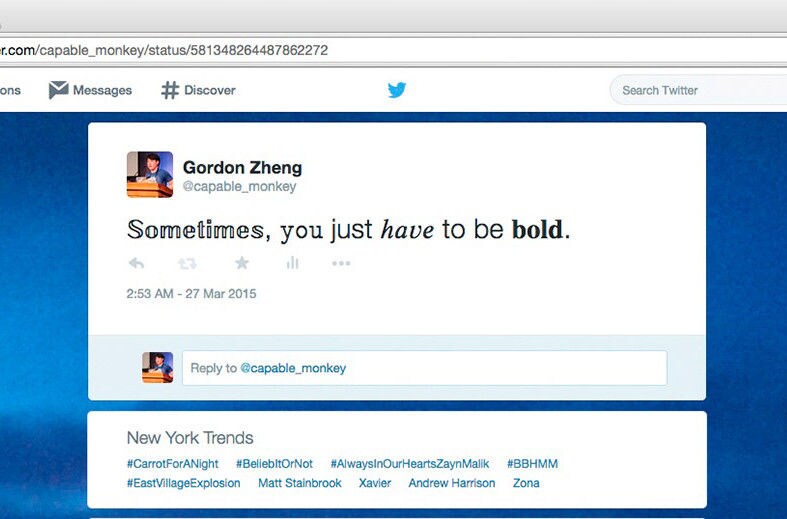
It can be very hard to capture exactly what you want to say in 140 characters on Twitter, which is why this online font generator exists -- allowing users to bold, italicize and "fancify" their tweets. 'Bedazzle' is a chrome extension that anyone can add to their browser to enables them to stylistically edit their tweets
The online font generator has an array of choices, with sections like formats, effects and even "unicorns" to choose from. Some of the most unique font editing choices parenthesize each letter without adding extra characters or space out the characters for a widened look. Enabling users to get even more personal and customize their tweets, Bedazzle will be a fan favorite to millennial Twitter users.
Bedazzle is an Online Font Generator That Adds Emphasis to Phrases